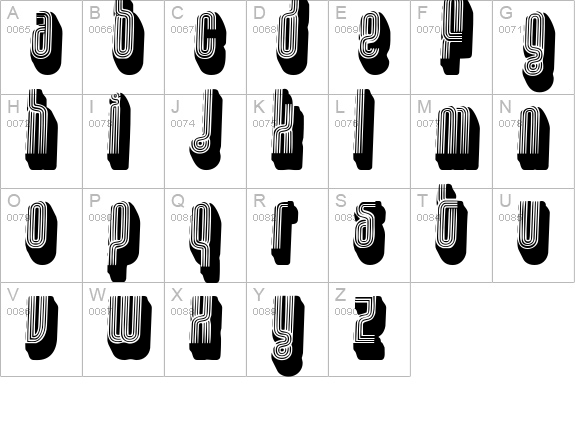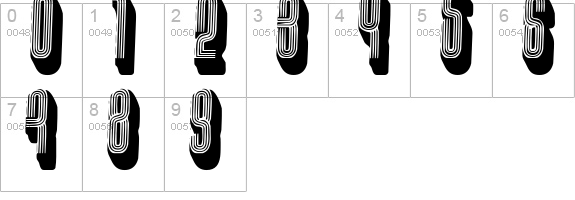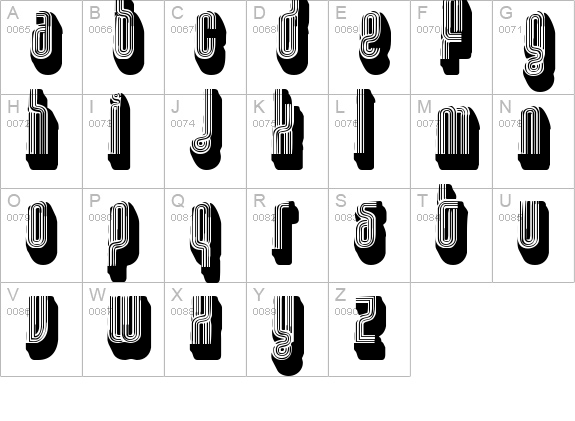
Disco 3 Fenotype font is a vibrant and energetic typeface that exudes the retro charm and groovy spirit of the disco era. With its bold and funky design, this font is perfect for adding a touch of disco flair to your projects. The playful curves and unique letterforms of Disco 3 Fenotype make it a standout choice for posters, album covers, party invitations, and more. What sets Disco 3 Fenotype apart is its versatility and ability to capture the essence of disco culture with its dynamic and eye-catching style. Whether you're looking to create a nostalgic disco vibe or simply want to inject some fun into your designs, this font is sure to make a statement. And the best part? Disco 3 Fenotype is completely free to download at FontsMarket.com! So go ahead and add some disco dazzle to your projects with this fabulous font today.